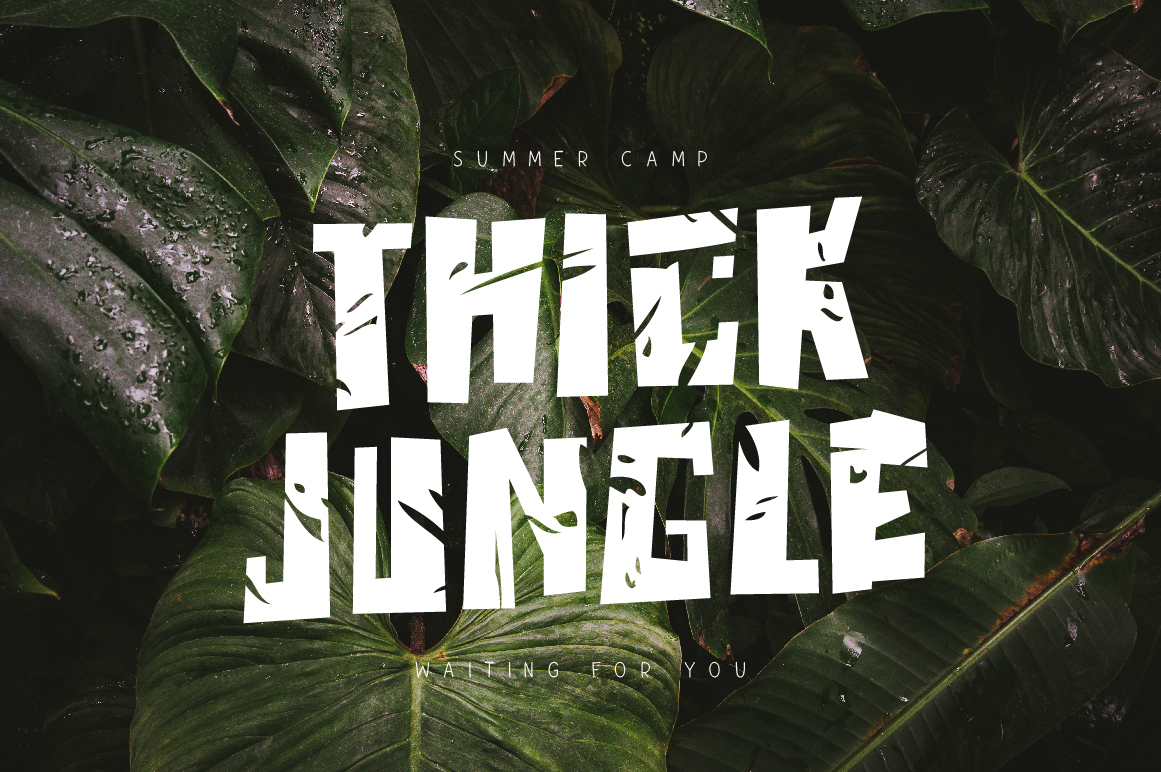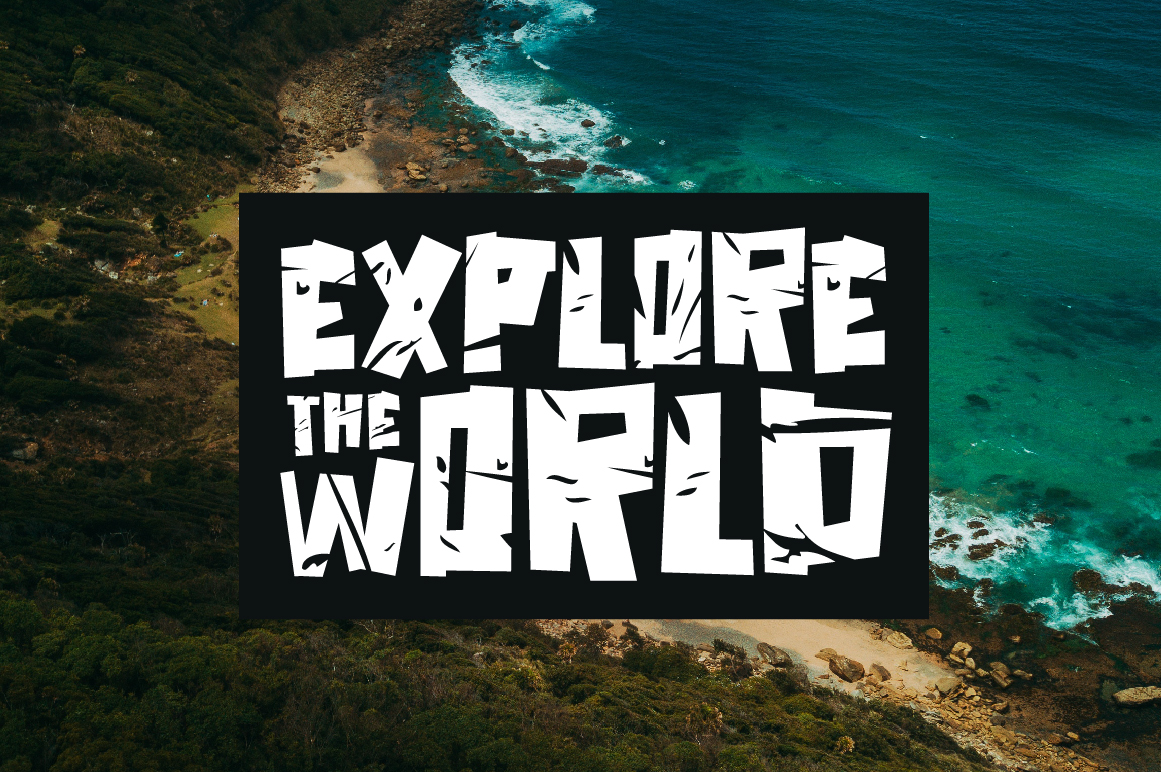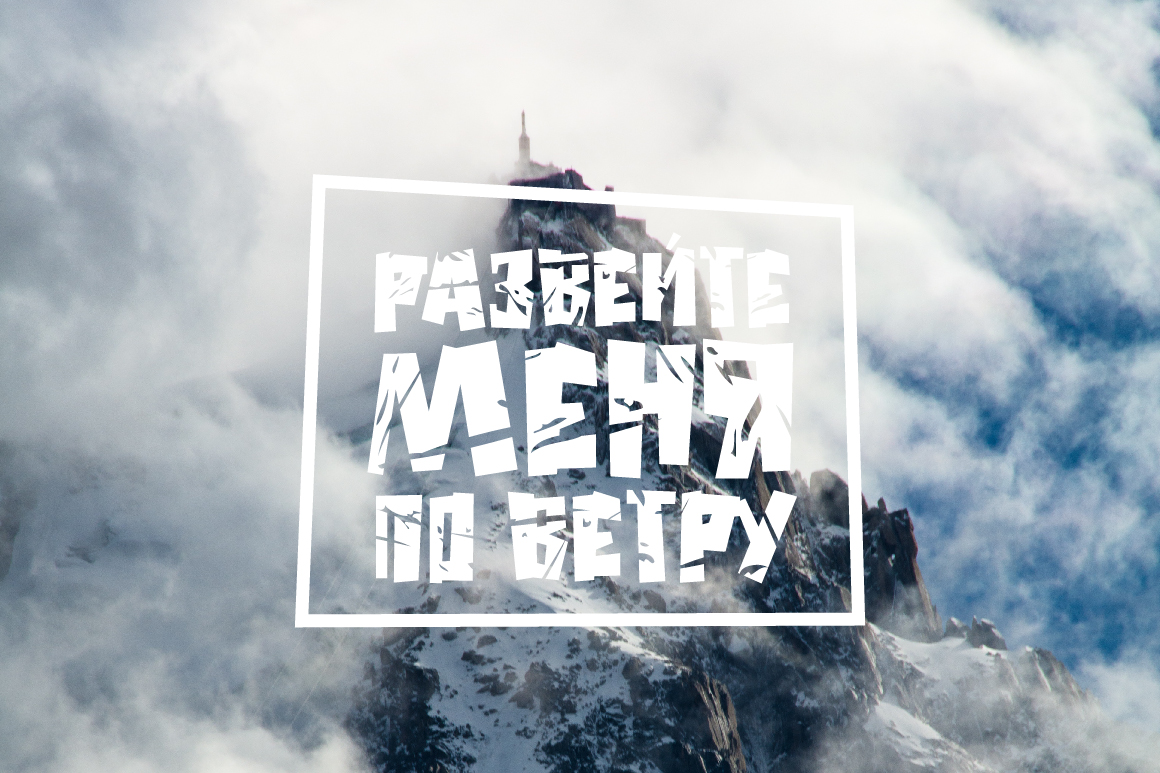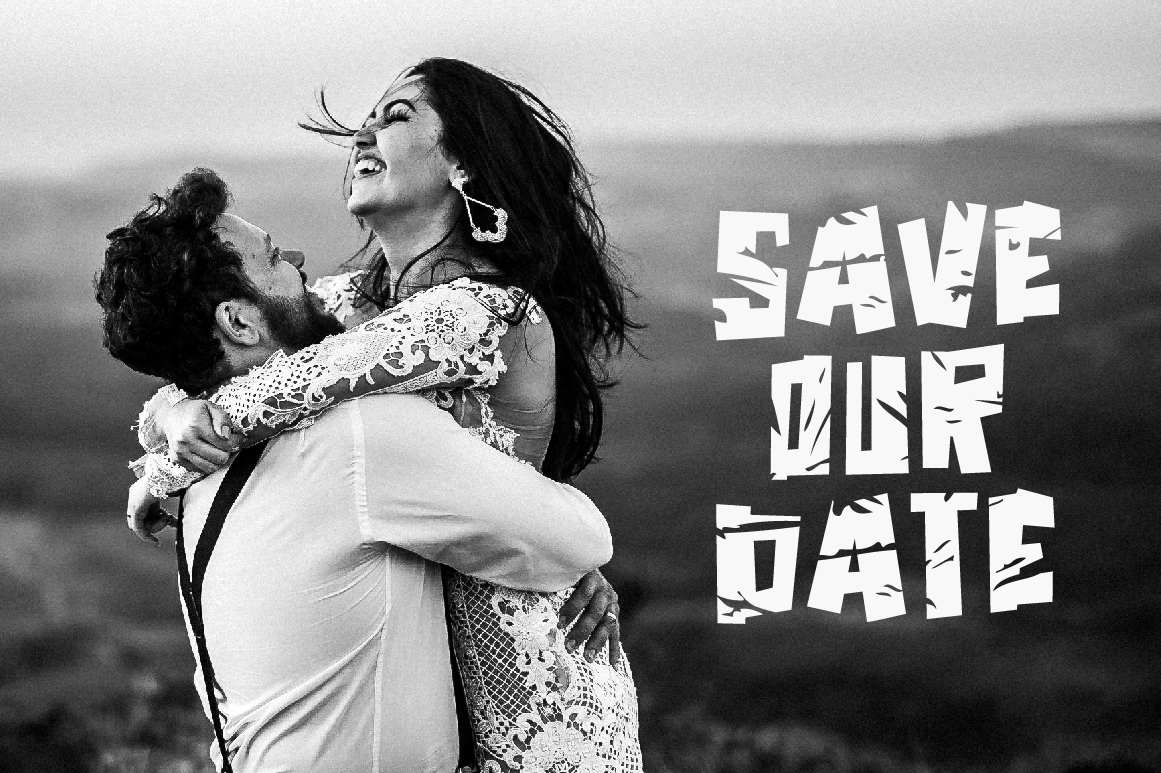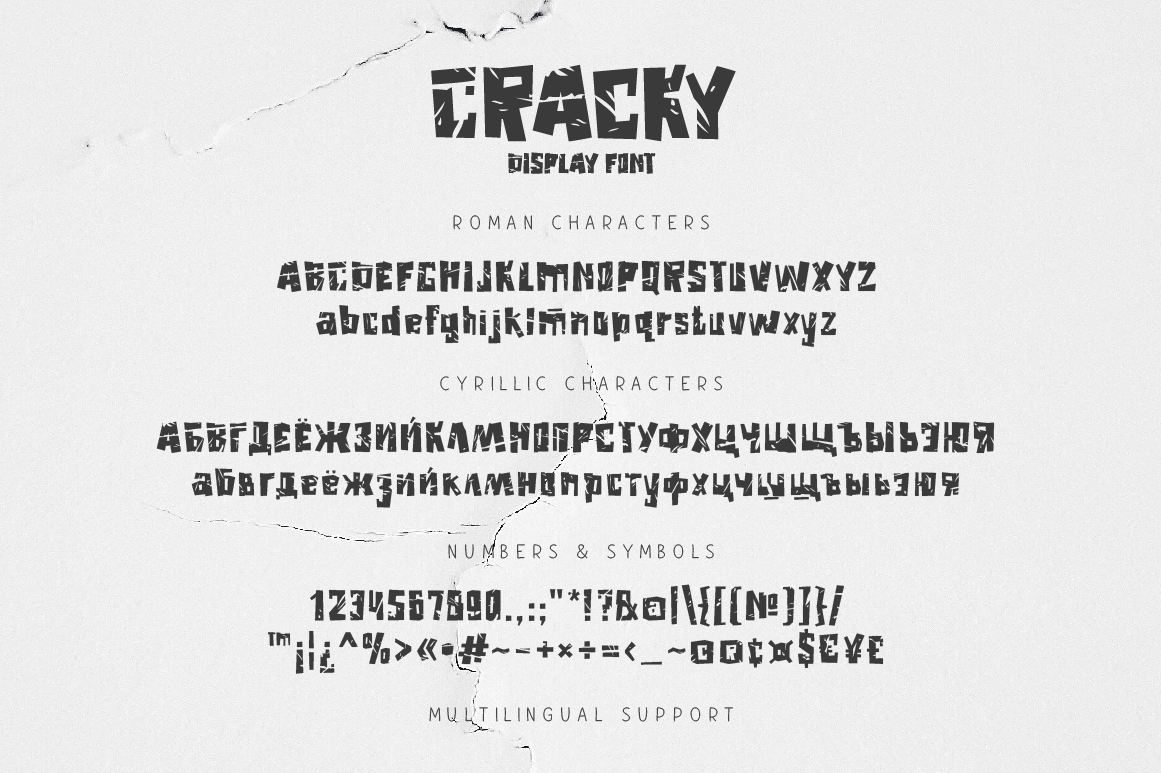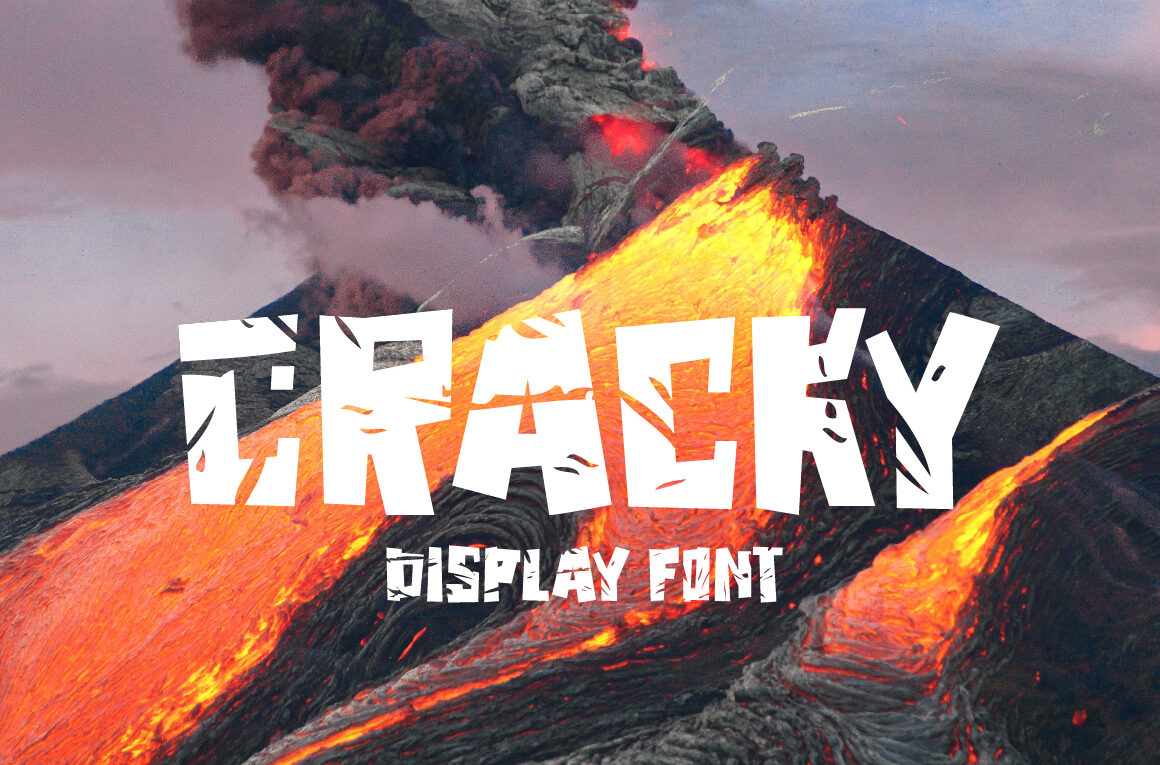
Cracky Font: The Ultimate Torn Font with Sharp Edges
Are you tired of using the same old fonts in your designs? Look no further than Cracky Font, a stunning torn font with sharp edges that’s sure to add a touch of edginess to your projects. With its unique and distressed look, Cracky Font is perfect for designers and crafters who want to add a bit of grit and texture to their work.
What is Cracky Font?
Cracky Font is a carefully crafted font that features a full set of lower and uppercase letters, a large range of punctuation, numerals, Cyrillic characters, and multilingual support. This makes it an adaptable font that can be used for a wide array of projects, from posters and flyers to logos and branding materials.
Key Features of Cracky Font
- Full set of lower and uppercase letters: Cracky Font includes a comprehensive set of letters, ensuring that you have everything you need to create professional-looking text.
- Large range of punctuation: From basic punctuation marks to more specialized characters, Cracky Font has got you covered.
- Numerals: Easily add numbers to your designs with Cracky Font’s clear and legible numerals.
- Cyrillic characters: Reach a wider audience with Cracky Font’s support for Cyrillic characters.
- Multilingual support: Whether you’re designing for a global audience or just want to add a bit of flair to your text, Cracky Font’s multilingual support has got you covered.
Uses for Cracky Font
With its versatility and unique look, Cracky Font can be used for a wide range of projects, including:
- Posters and flyers: Add a touch of edginess to your promotional materials with Cracky Font.
- Logos and branding: Create a memorable brand identity with Cracky Font’s distinctive look.
- Social media graphics: Stand out on social media with Cracky Font’s bold and eye-catching style.
- Packaging design: Add a bit of texture and grit to your packaging designs with Cracky Font.
Why Choose Cracky Font?
So why choose Cracky Font over other fonts? Here are just a few reasons:
- Unique look: Cracky Font’s distressed look sets it apart from other fonts and adds a touch of edginess to your designs.
- Versatility: With its comprehensive character set and multilingual support, Cracky Font can be used for a wide range of projects.
Tips for Using Cracky Font
Here are a few tips for getting the most out of Cracky Font:
- Experiment with different sizes: Cracky Font looks great in a variety of sizes, from small and subtle to large and bold.
- Pair with other fonts: Try pairing Cracky Font with other fonts to create a unique and eye-catching look.
- Use for headlines and titles: Cracky Font’s bold and attention-grabbing style makes it perfect for headlines and titles.
Cracky Font is a versatile and unique font that’s perfect for designers and crafters who want to add a bit of edginess to their work. With its comprehensive character set, multilingual support, and distressed look, Cracky Font is sure to become a go-to font in your collection. So why wait? Download Cracky Font today and start adding a touch of grit and texture to your designs!